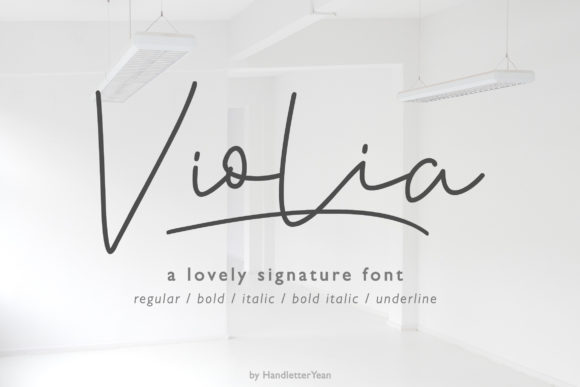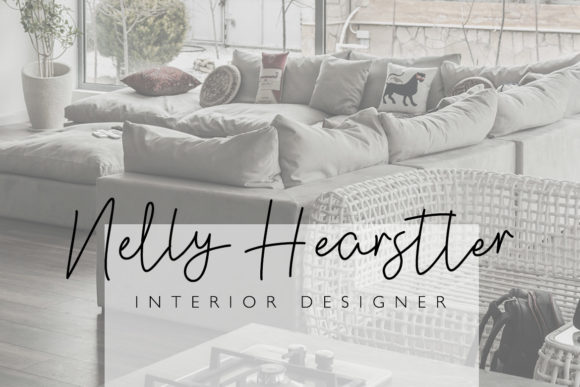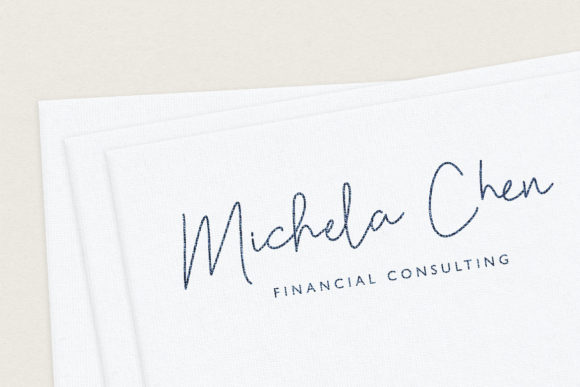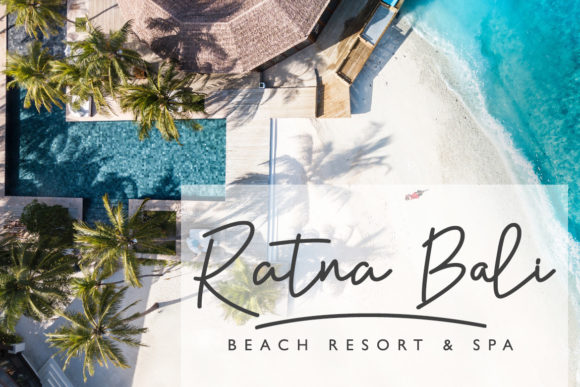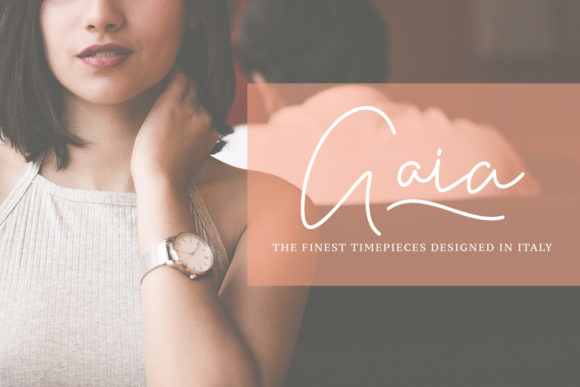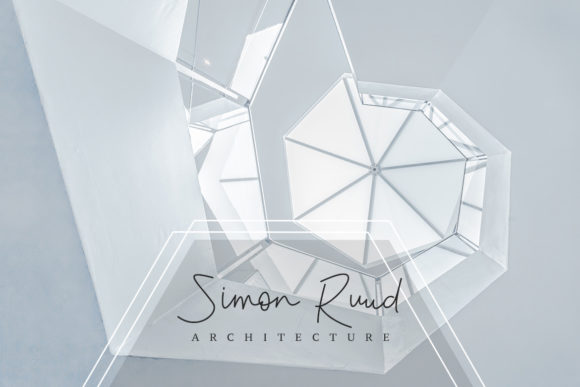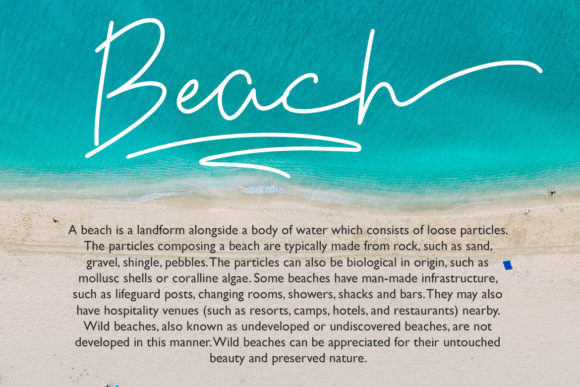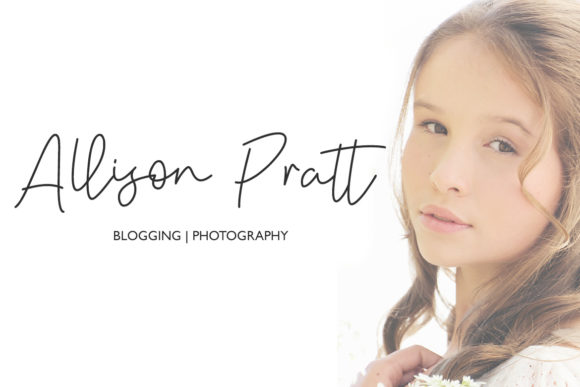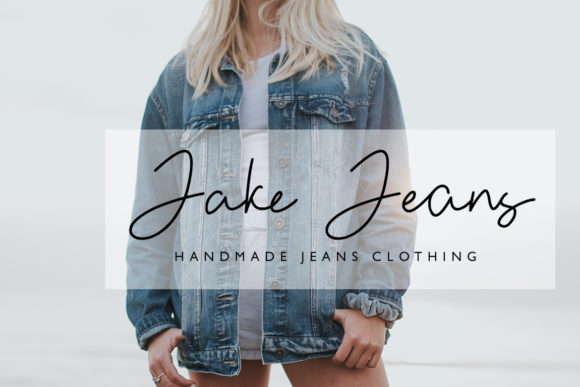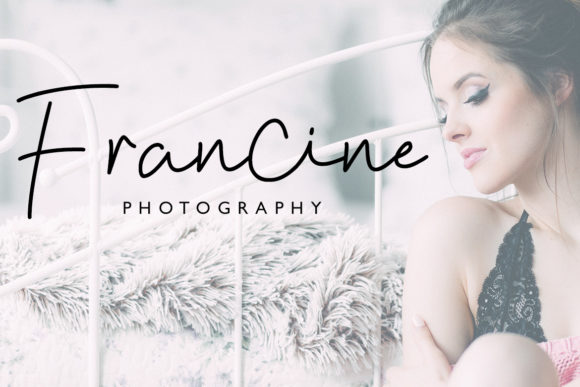
Violia Font
Violia is a simple, elegant and authentic handwritten font with a contemporary feel. It will add a sophisticated spark to any design idea.